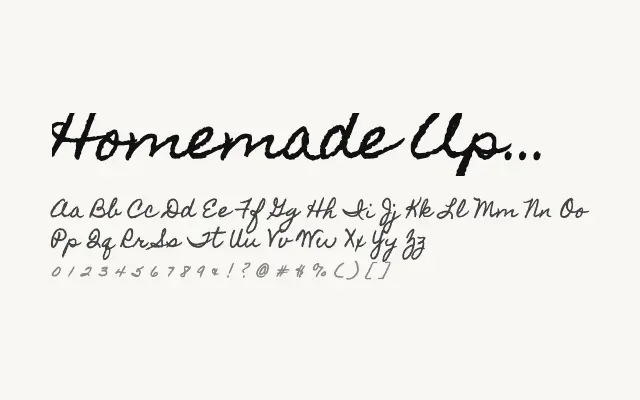
Homemade Apple
A rough, casual handwriting script that evokes a genuine personal signature rather than polished calligraphy.
Homemade Apple leans into imperfection, with uneven baselines and irregular strokes that give it an authentically hand-crafted quality. It suits informal branding, greeting card designs, and contexts where warmth and personality matter more than legibility at small sizes. Best used sparingly at large display sizes where its expressive character can shine.
A loose, irregular handwritten script mimicking a hurried personal signature, with highly variable letterforms and extreme informality. Stroke weights are inconsistent and connections are rough, reinforcing the personal, unpolished aesthetic.